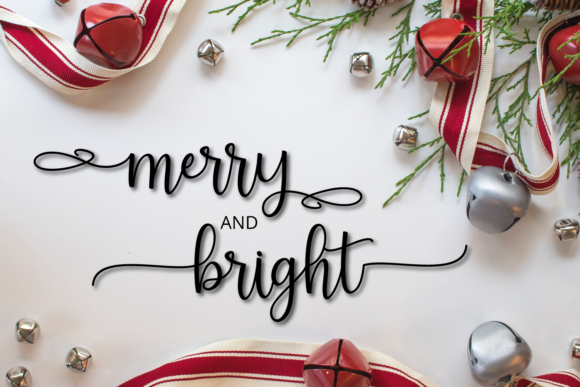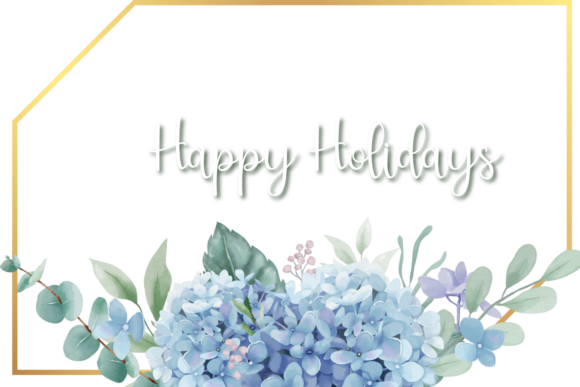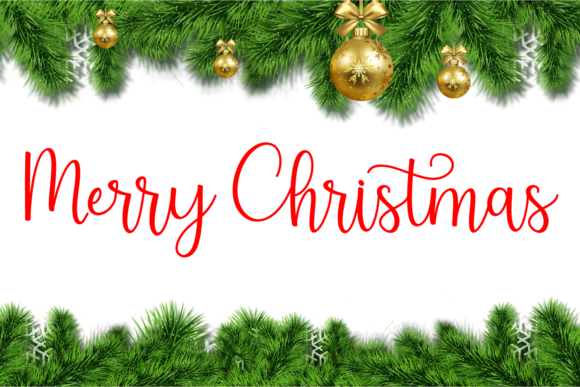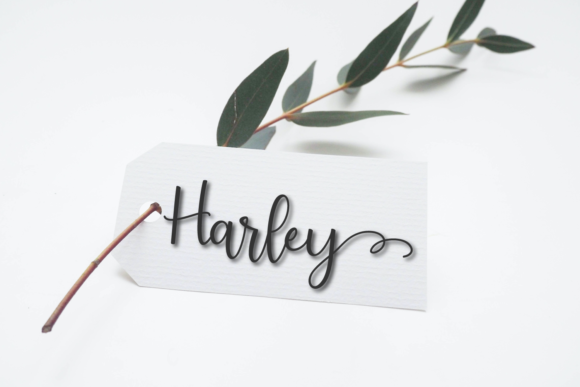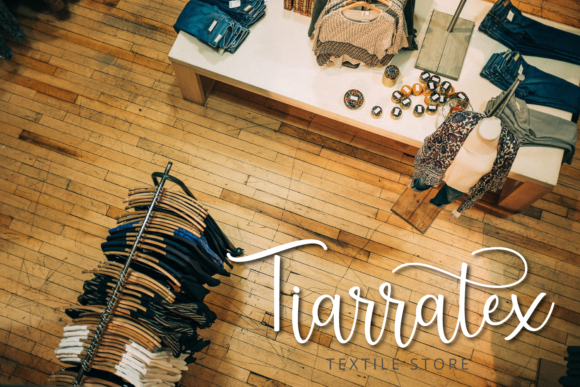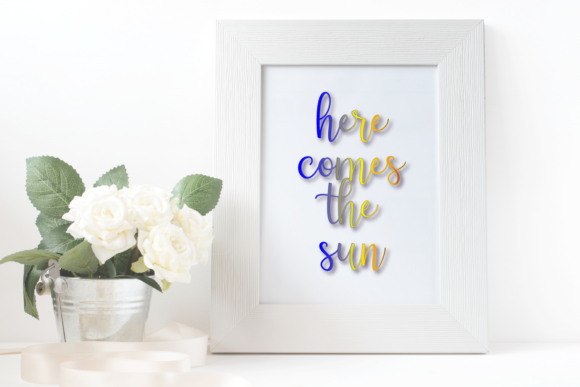
Introduction to Last Christmas Script Font
There’s something magical about the holiday season – twinkling lights, warm firesides, and the joy of creating something special for loved ones. As a designer, you’re likely no stranger to this feeling, and the need for a high-quality design resource that captures the essence of the season.
Enter the Last Christmas Script Font, a lovely and timeless handwritten font that’s perfect for creating eye-catching logos, branding, and quotes. With its beautiful, flowing script and PUA encoding, this font is a treasure trove of creative possibilities. Whether you’re working on a project for a client or simply want to add a touch of holiday magic to your own designs, the Last Christmas Script Font is a valuable addition to your design toolkit.
Last Christmas Script Font
- High-quality script font with a unique, festive design perfect for creative projects and holiday-themed designs.
- Includes a transparent background, allowing for easy layering and customization in design applications.
- Designed with a high-resolution (300 DPI) for print and digital use, ensuring crisp and clear typography.
- Suitable for various creative projects, including invitations, greeting cards, and social media graphics.
- Perfect for adding a personal touch to your designs, with its elegant and whimsical script style.
Honest Review: Last Christmas Script Font
I recently had the chance to work with the Last Christmas Script Font, and I must say it’s been a lovely addition to my design resource library. This script font is perfect for those creative projects that need a touch of festive charm.
What works well: ✨ The font’s high-quality design makes it suitable for a wide range of applications, from digital to print media. I particularly appreciate the transparent background option, which allows for seamless integration with other design elements. The font’s playful and elegant feel is also a huge plus, making it ideal for holiday-themed projects.
Here are some of the font’s notable features:
- High-quality design suitable for various media
- Playful and elegant feel perfect for holiday projects
What could be improved: ⚠️ The font may not be as versatile for projects that require a more modern or edgy look. Additionally, the font’s script style may not be suitable for projects with a lot of text.
Overall impression: The Last Christmas Script Font is a wonderful addition to any designer’s library. Its high-quality design and playful feel make it perfect for holiday-themed projects. While it may have some limitations, I would highly recommend it for those looking for a charming and elegant script font.
To get the most out of the Last Christmas Script Font, use it with a transparent background to create a beautiful, layered design. You can also pair it with other high-quality fonts to create a unique and eye-catching look.
The Last Christmas Script Font is perfect for holiday projects, such as Christmas cards, gift tags, and party invitations. It’s also great for creating beautiful quotes, captions, and titles for social media posts and blog articles.